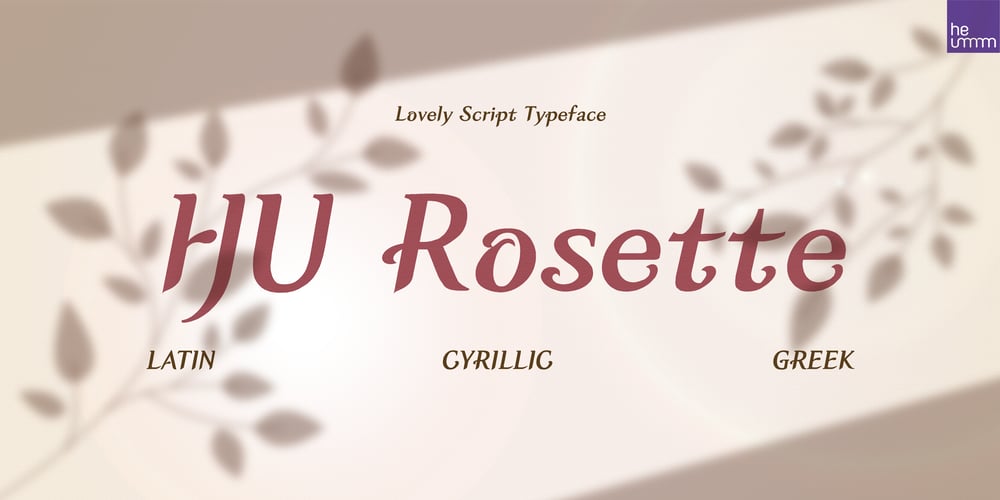
HU Rosette Font Family was designed by Haerin Lee, ByoungHeon Park, Rumi Kim, Gahee Kim and published by Heummdesign. HU Rosette contains 2 styles and family package options. HU Rosette is a romantic script font that can be used to express elegance in your image.Το HU Rosette είναι μια ρομαντική γραμματοσειρά σεναρίου που μπορεί να χρησιμοποιηθεί για να εκφράσει την κομψότητα στην εικόνα σας.HU Rosette – романтический шрифт, который можно использовать для придания элегантности вашему изображению.